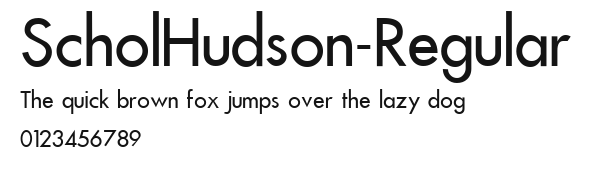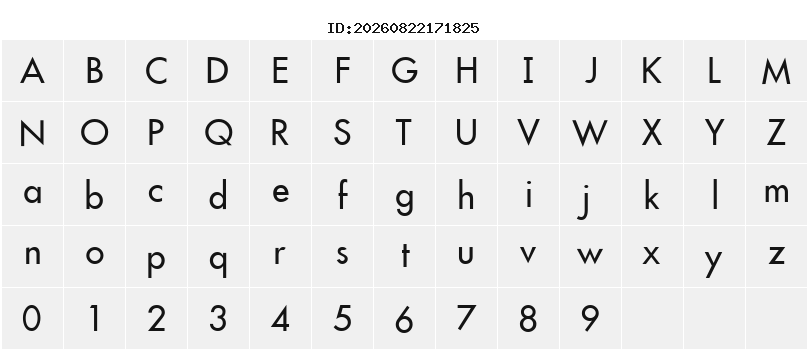
ScholHudson-Regular.ttf is a modern, elegant sans-serif font designed for ultimate readability and visual harmony. Perfect for branding, headlines, web design, and print materials.